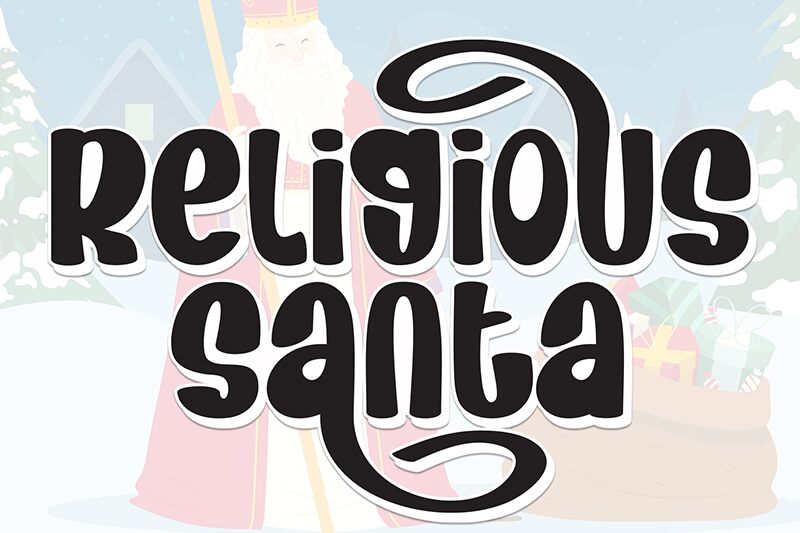
Religious Santa
Religious Santa font is a quirky display font with a cartoon and retro style designed by Scratchones. The bold characters show rounded thick lines for their build which results in an informal vibe. It definitely has a prominent character which will manage to attract people’s attention even when using it in smaller sizes.
Enjoy the free Religious Santa font in your magazines, and also comic book titles and dialogues, video games scenes, movies, posters, insignia designs, packages, ads printings or social media platforms.